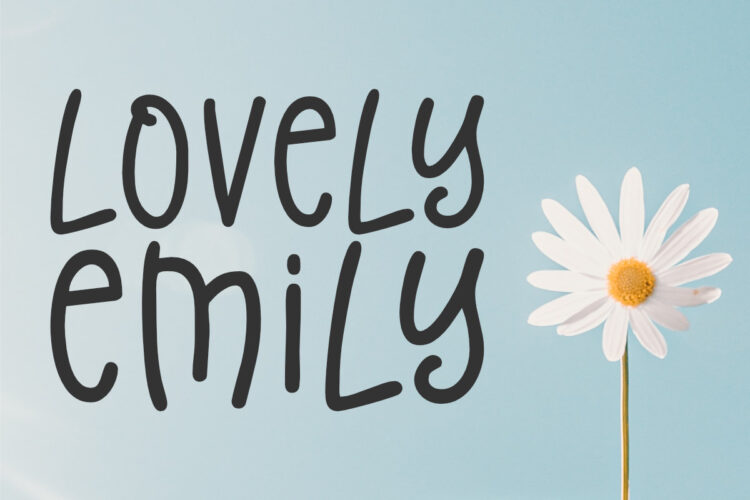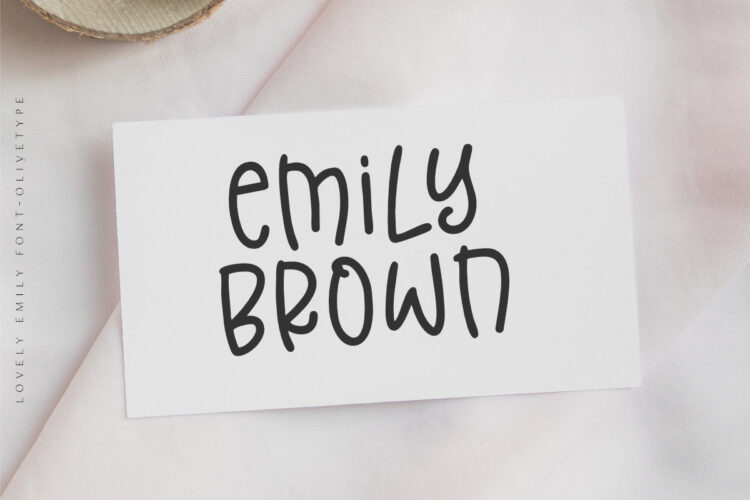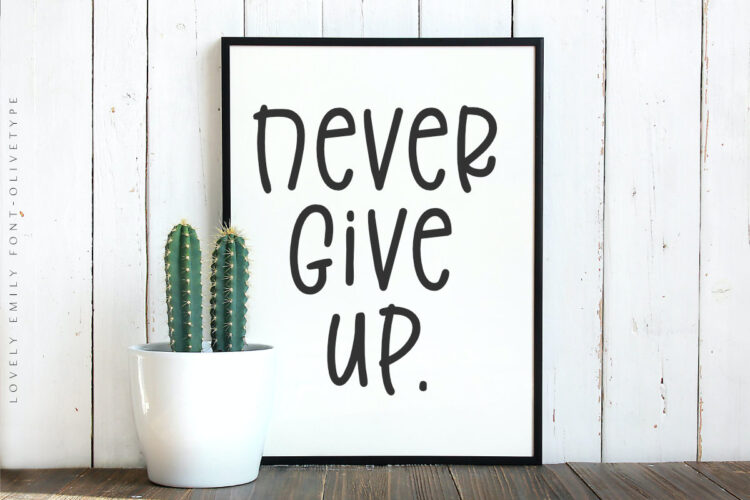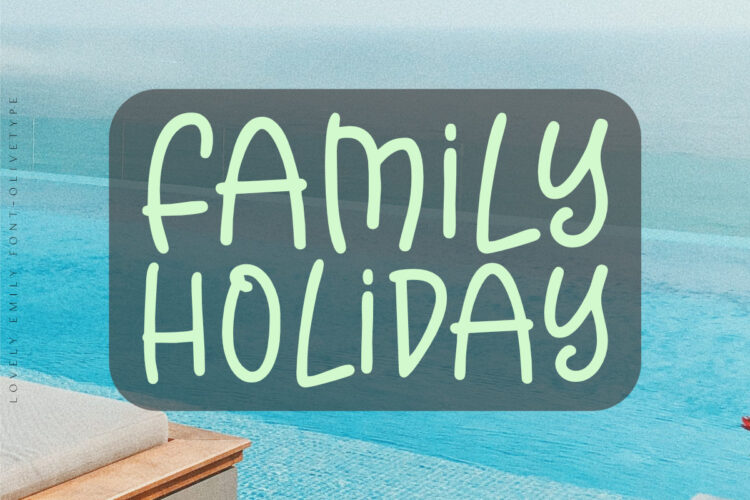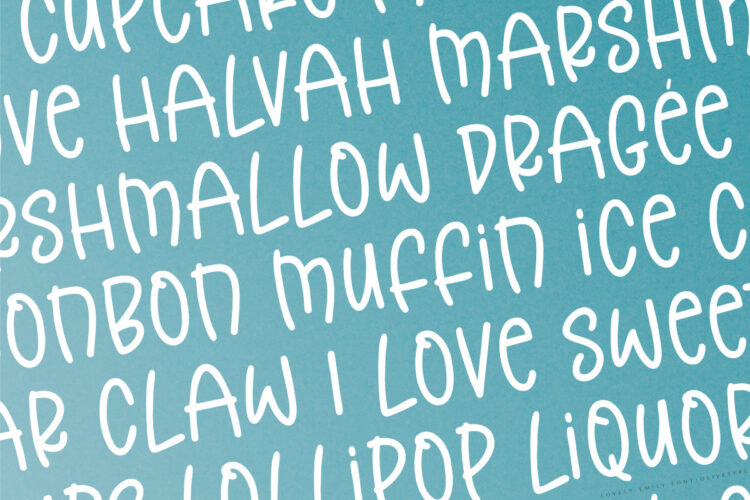
Lovely Emily is a simple, quirky, and adaptable handwritten font. Its informal style and casual vibe will make this font a go-to choice for each of the creations that require a relaxed touch. The font Lovely Emily contains 194 glyphs, supporting 66 languages, which include: Afrikaans Albanian Catalan Danish Dutch English Estonian Finnish French German Italian Norwegian Portuguese Spanish Swedish Zulu, and more.
- Basic Latin A-Z & a-z.